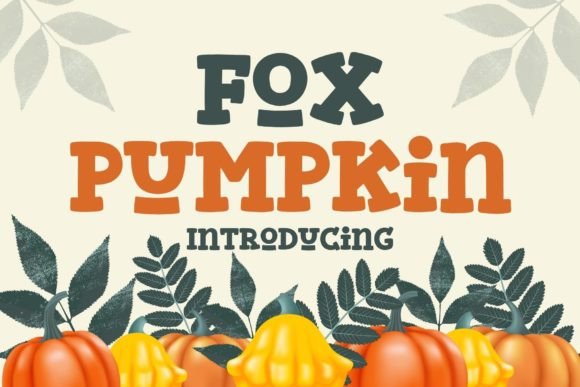
Introducing Fox Pumpkin Font, the ultimate font for advertising design created by Fox7. This bold and playful slab serif font is here to revolutionize your designs and captivate your audience like never before.
With its vibrant and expressive design, Fox Pumpkin Font injects an energetic touch into your creations, instantly drawing attention to your headlines, t-shirt typography, banners, product labels, and more. This font is a powerhouse of versatility, allowing you to unleash your creativity and make a lasting impression.
Imagine the impact of your advertising campaigns when you use Fox Pumpkin Font. Its eye-catching presence will effortlessly grab the attention of your target audience, leaving them mesmerized and eager to explore what your brand has to offer. This font is your secret weapon to stand out in a crowded market and make your message heard.
But Fox Pumpkin Font is not just about aesthetics. It is keyword-rich, ensuring that your content ranks high in search engine results and reaches the right audience. By incorporating this font into your designs, you are maximizing your chances of being found by users actively looking to buy.
Embrace the power of emotional connection with Fox Pumpkin Font. Its bold and playful nature creates a sense of excitement and joy, evoking positive emotions in your audience. Whether you're promoting a new product, announcing a special offer, or sharing your brand's story, this font will convey your message with style and impact.
Designed by Fox7, Fox Pumpkin Font is the result of meticulous attention to detail and a deep understanding of the power of typography. This font is not just a tool; it is a work of art that elevates your designs to new heights.